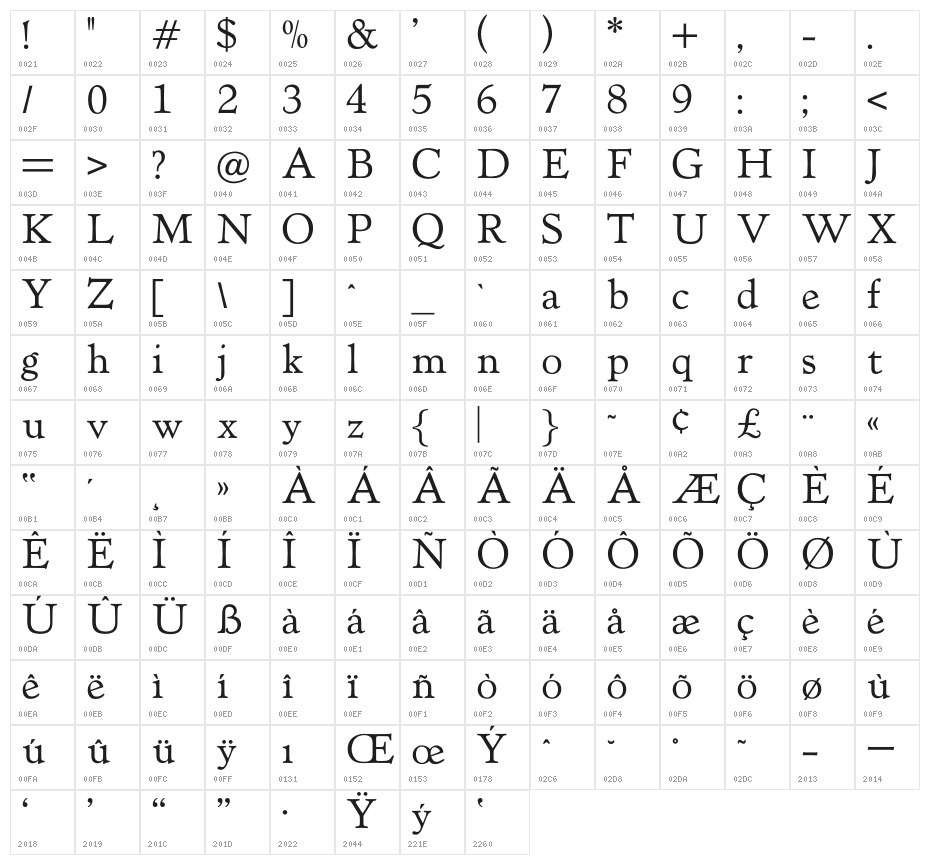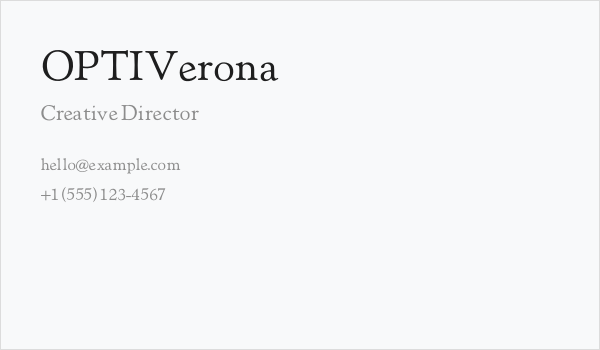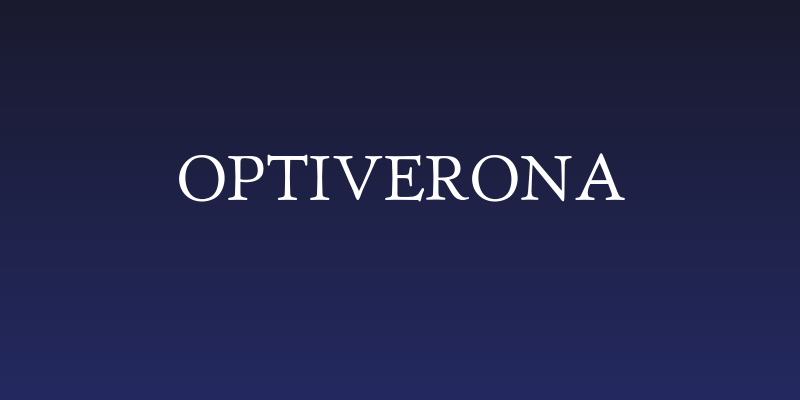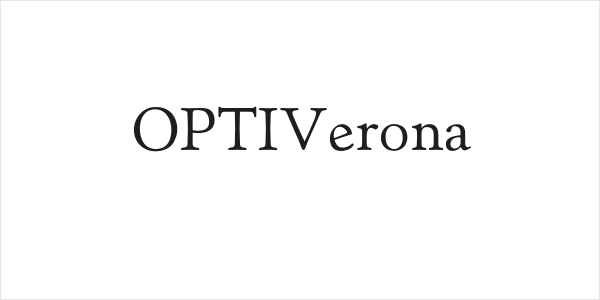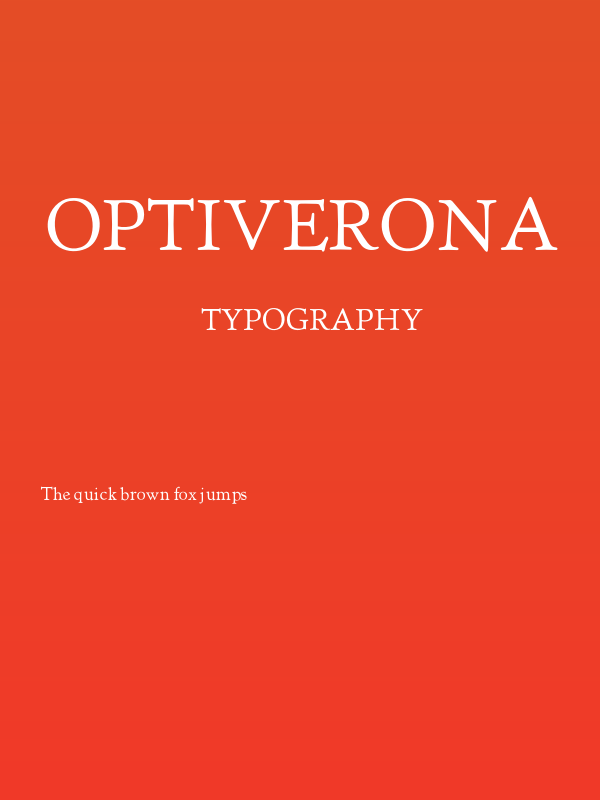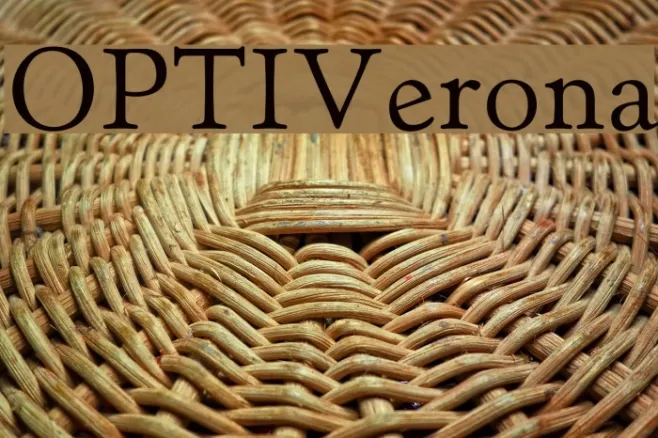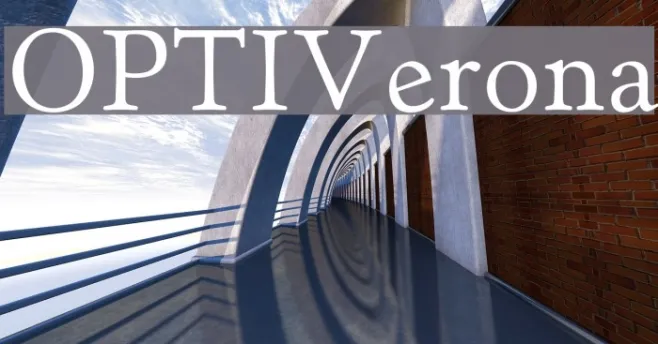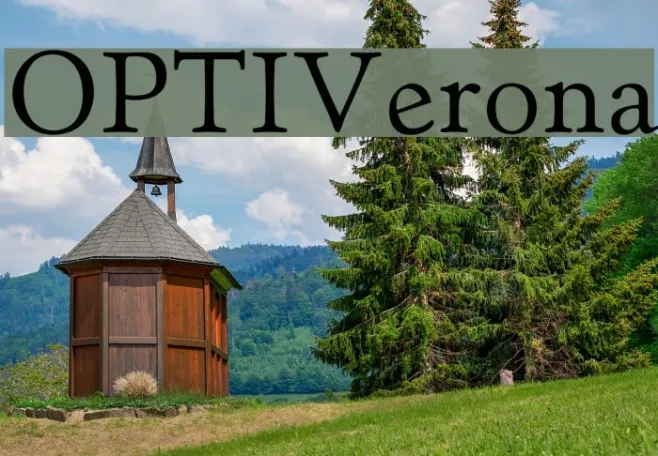
OPTIVerona Font
OPTIVerona Description
This serif typeface exudes a classic elegance with its refined and traditional design. The uppercase letters are bold and commanding, while the lowercase letters maintain a graceful flow. The numerals are clear and balanced, ensuring readability. Special characters are thoughtfully designed, complementing the overall aesthetic. The font's high contrast between thick and thin strokes adds a sophisticated touch, making it suitable for formal and professional settings. Its timeless appeal makes it versatile for various applications, from print to digital media.